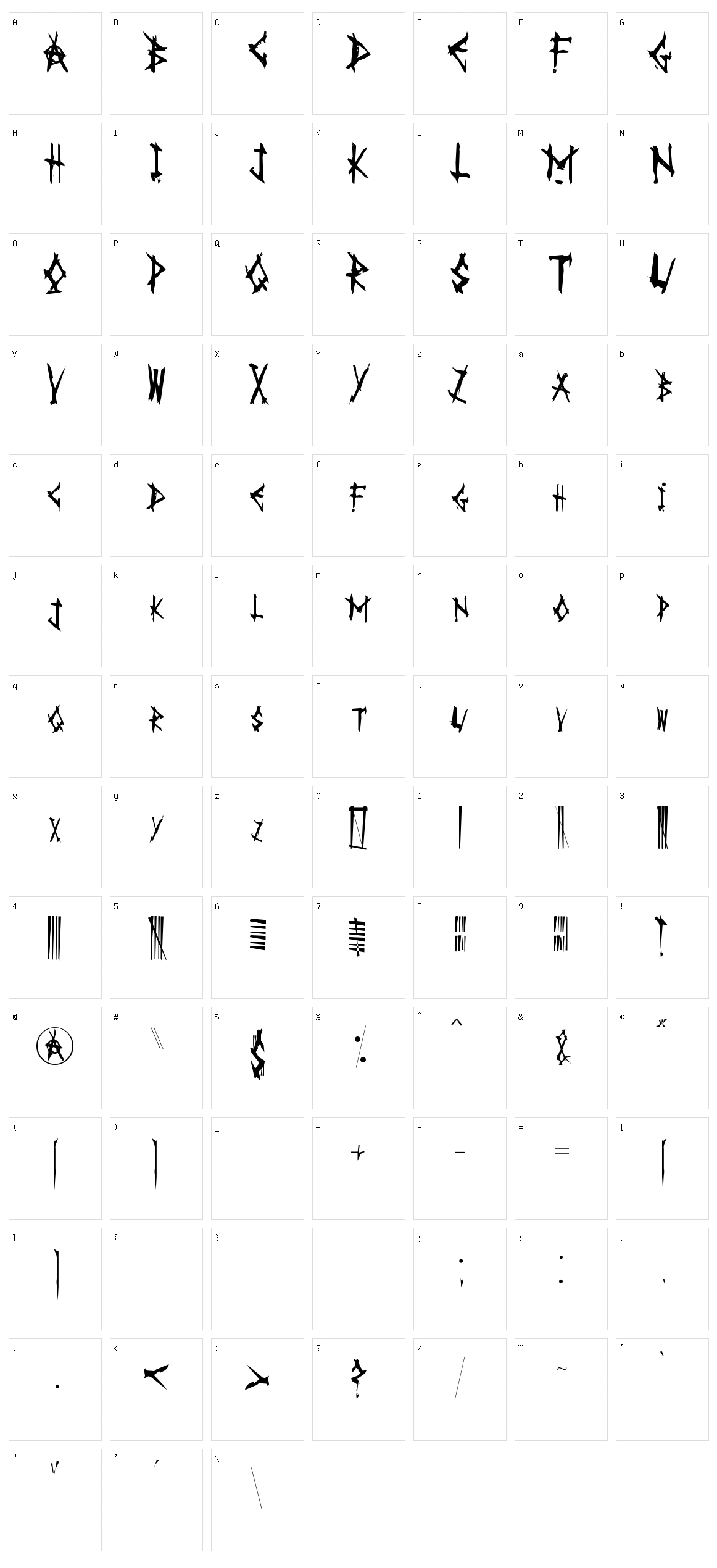
The free font AnarK is carefully designed by Tilion "Rogaty", showcasing a thoughtful balance of creativity and usability and falls under the Trash font style. When you download the ZIP file, it contains only 57.06 KB of font files, making it lightweight and quick to download. Please review the license details below to understand permitted usage and distribution rights. If license information is not available, we recommend using this font for personal projects only or contacting the author directly for commercial usage permissions.